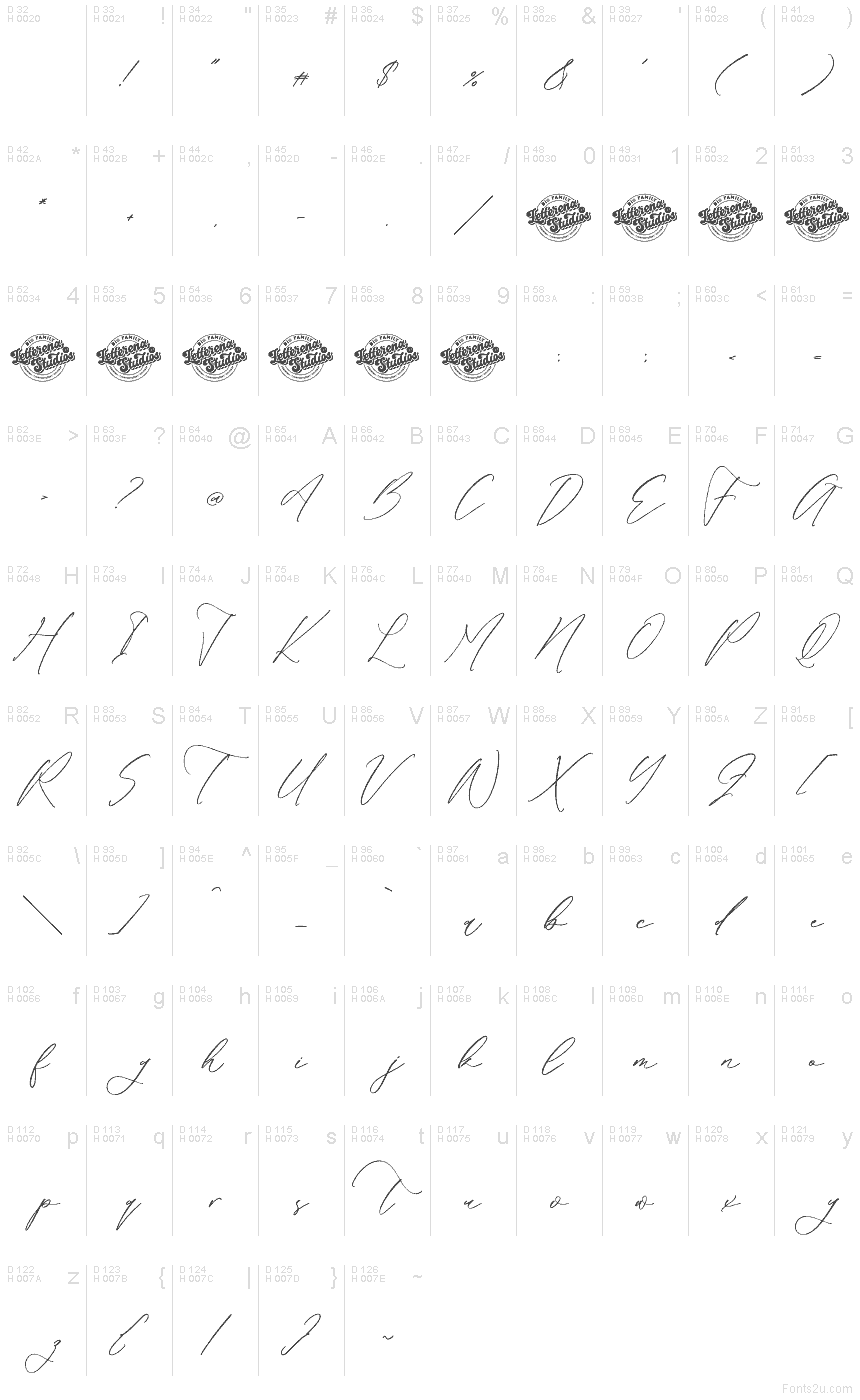
Victoria Cordeline DEMO VERSION
Victoria Cordeline font by Storytype Studio is a handwritten font infused with a light weight and signature style. Elegant, sophisticated, and refined, the font has fluid motion and delivers a personal touch to any design project relying on its use.